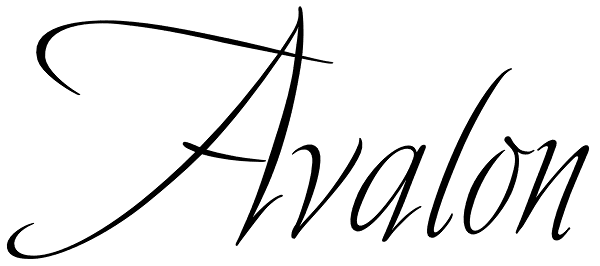
Avalon
Friedrich Neugebauer is known for the cutting power of his calligraphic invention. As a prisoner of war in Egypt, he wrote with toothpaste when all else failed. The irrepressible style of this Austrian artist inspired Boston designer Richard Lipton...
Avalon